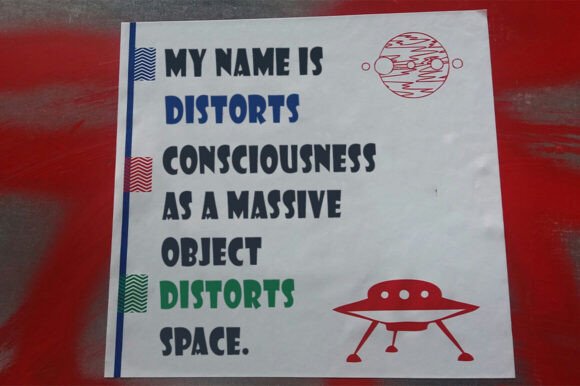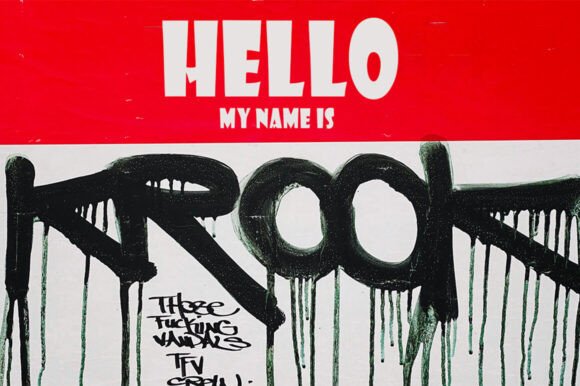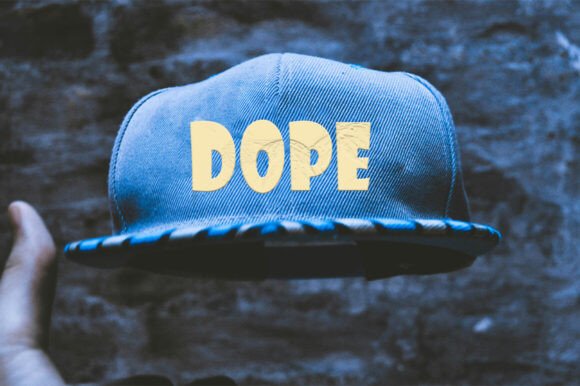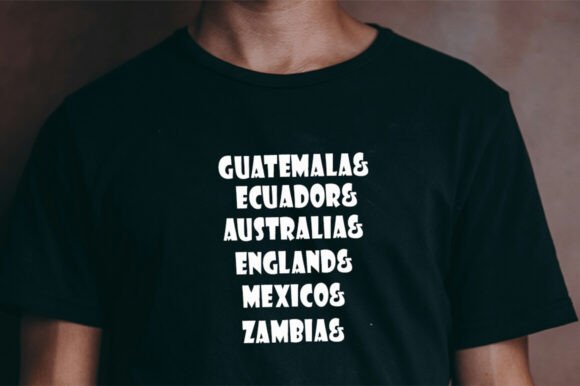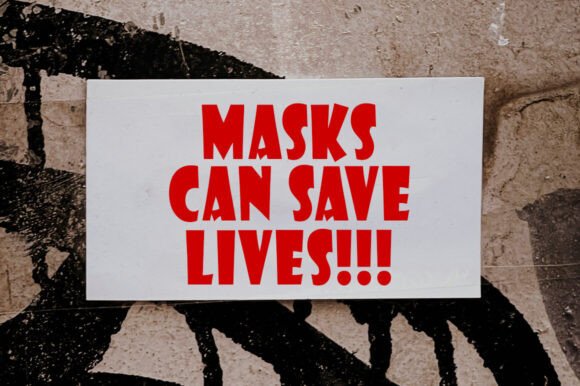
The Power of Typography: Unleashing Climate Font
Remember the rush of adrenaline when you finally land on the perfect font for a project? It’s that moment when all the pieces come together, and your creative vision is brought to life. For designers, the quest for the perfect font is a never-ending journey, and one that can make or break a design. That’s why the introduction of Climate Font has sent shockwaves through the design community.
Climate Font is a bold, unapologetic typeface that demands attention. Its classic sans-serif construction gets a modern, edgy twist, making it the perfect choice for headlines that refuse to be ignored. Whether it’s protest posters, gritty urban branding, or anything that demands a powerful voice, Climate Font is the ultimate tool for designers who want to make a statement.
Key Features of Climate Font
- Unique Character Set: Climate Font features a specially designed character set that reflects the impact of climate change, including melting ice caps, rising sea levels, and weather patterns.
- Resolution: Designed for high-resolution displays, Climate Font is optimized for use at resolutions of 300 DPI and above.
- Size: Climate Font is available in a range of sizes, from 8 points to 72 points, making it suitable for use in various applications, from body text to headings.
- Dynamic Ligatures: Climate Font features dynamic ligatures that adjust to the surrounding text, creating a unique and engaging reading experience.
- Customizable: Climate Font allows for customization of the character set and ligatures, enabling designers to tailor the font to their specific needs and branding.
Climate Font Review
As a designer, I was intrigued by the Climate Font, a font designed specifically to visualize climate data. Overall, I found it to be a unique and thought-provoking tool, but with some limitations.
- The font’s ability to convey complex climate data in a simple and intuitive way is a major strength. It’s perfect for illustrating trends and patterns in climate data.
- The font’s design is visually appealing and easy to read, making it a great addition to any climate-related project.
- The font’s versatility allows it to be used in a variety of contexts, from reports and presentations to social media and websites.
- The font’s focus on climate data means it may not be suitable for other types of projects, limiting its versatility.
- The font’s design, while visually appealing, may not be to everyone’s taste, which could be a drawback for some users.
- The font’s ability to convey complex data may be overwhelming for some users, especially those without a background in climate science.
Overall, I think the Climate Font is a valuable tool for anyone working with climate data. While it has some limitations, its unique design and versatility make it a worthwhile addition to any designer’s toolkit.
Climate Font is commonly used in:
- Sustainability reports and marketing materials.
- Environmental awareness campaigns and posters.
- Scientific papers and academic publications.
Comparison to Climate Font: While both fonts are sans-serif, Noto Sans lacks the distinctive rounded edges and gentle curves of Climate Font. Noto Sans is a more versatile font, suitable for a wide range of applications.
How can I customize Climate Font for my specific design needs?
While Climate Font is designed to be highly readable and versatile, you can customize it to fit your specific design needs by using font subsets and modifying the font’s CSS styles. You can also use font manipulation tools to create custom font variants or modify the font’s characteristics to suit your design requirements.